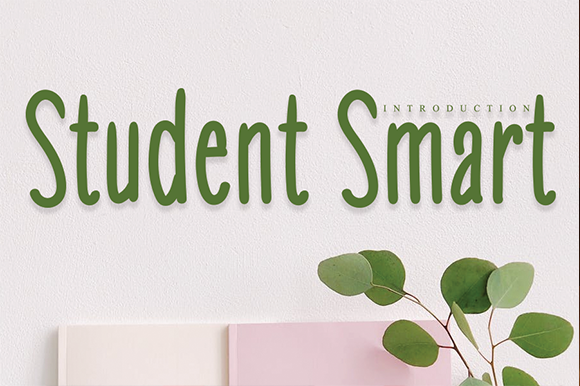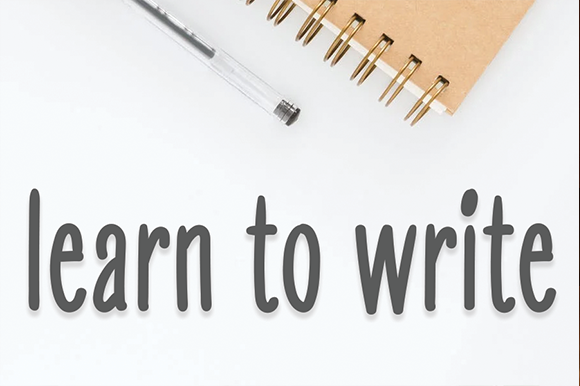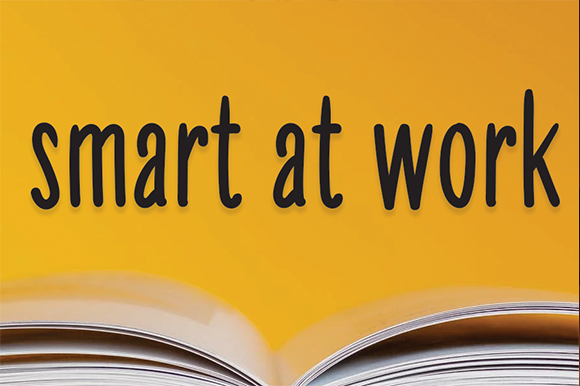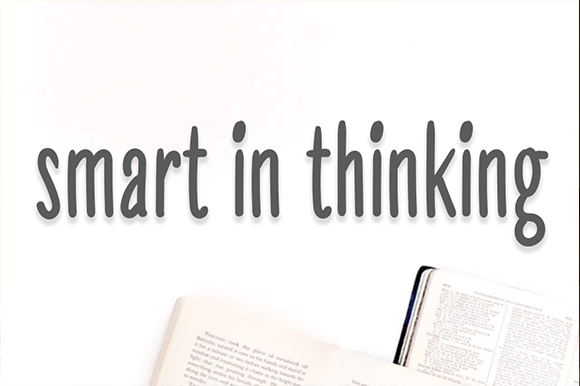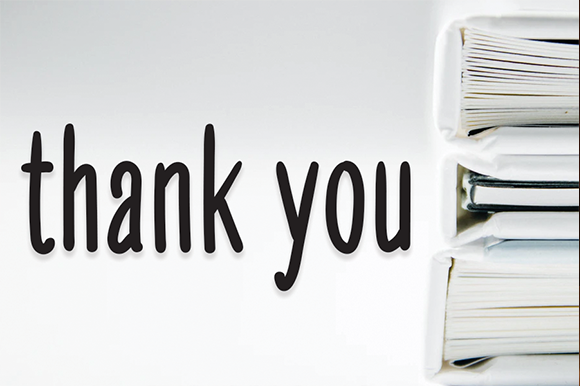
Student Smart Font
About Student Smart Font
Student Smart embodies fun, quirkiness and authenticity. This enchanting handwritten font will turn any creative idea into a true standout.